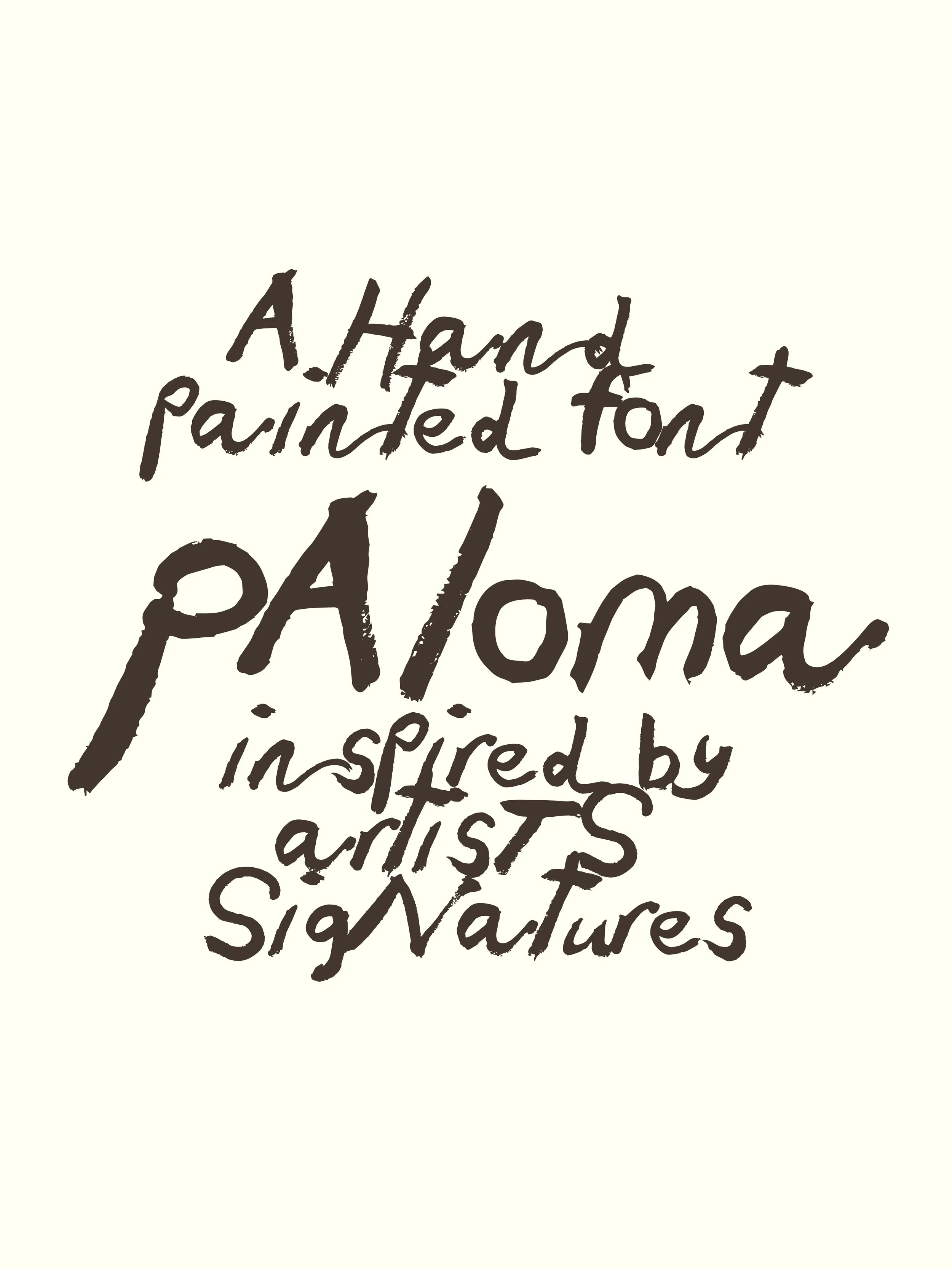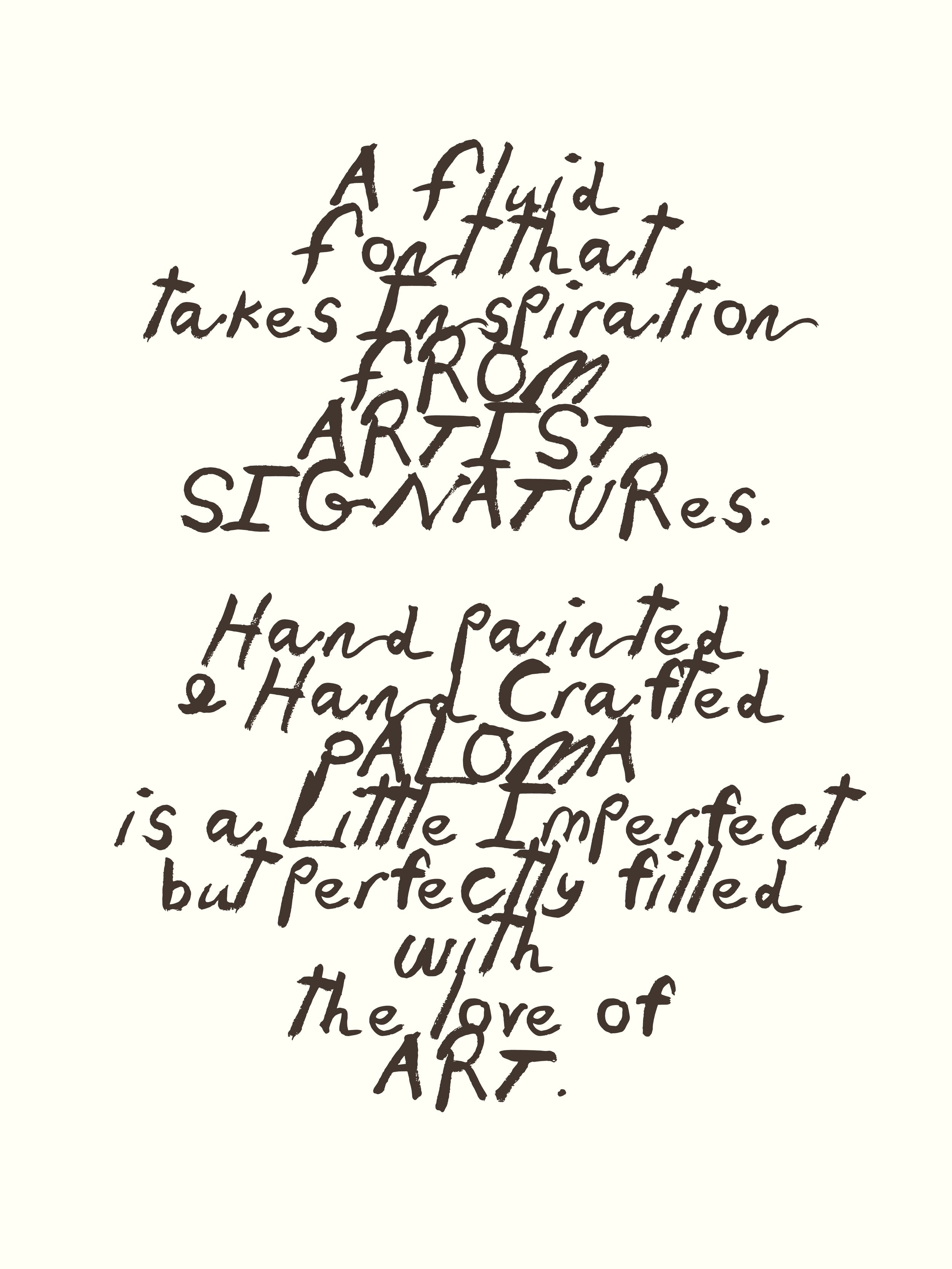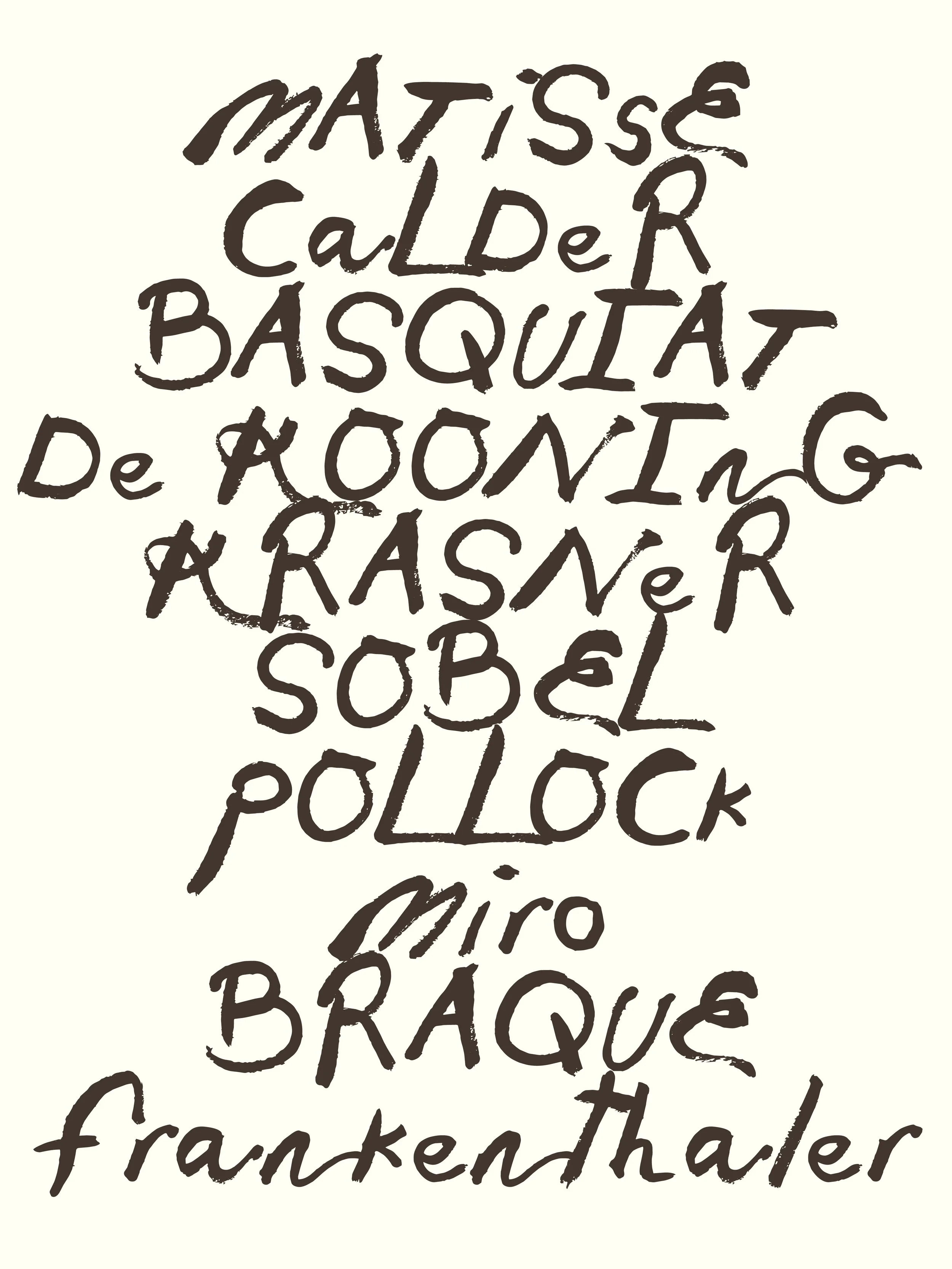
Paloma | Hand Painted Font
Paloma™ is a hand-painted display font inspired by loose brush strokes, artist signatures, sketchbook notes, and the quick expressive marks made at the end of a paintbrush.
Created from real painted letterforms, Paloma embraces imperfection. Uneven edges, organic movement, and painterly details give the font a natural, human quality that feels spontaneous rather than polished. It captures the feeling of signing a canvas, scribbling an idea in the margins, or making a confident mark with a loaded brush.
Perfect for projects that need an artistic, handmade touch, including:
• Art galleries & institutions
• Creative studios
• Exhibition graphics
• Restaurant menus
• Invitations & stationery
• Packaging
• Editorial design
• Social media graphics
• Artist websites & portfolios
• Craft brands & handmade products
Paloma works best at smaller to medium sizes where the painterly texture and brush details can be appreciated. Due to its handcrafted nature, it is not recommended for extremely large-scale applications such as oversized signage or large-format banners where the brush texture may become exaggerated.
Paloma was designed for creatives, makers, artists, and storytellers looking for typography that feels personal, expressive, and full of character.
Loose. Painterly. Imperfect. Human.